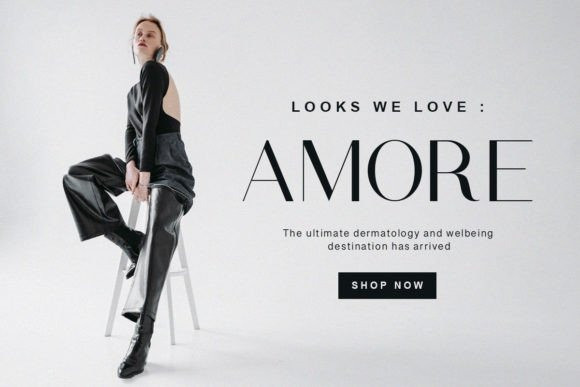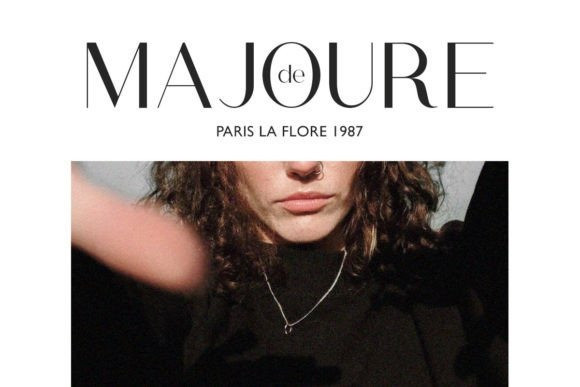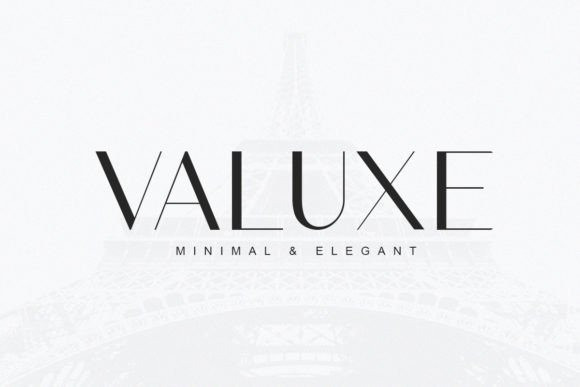
Valuxe Font
Valuxe Font — modern and minimalist sans serif. This font pairs well with a basic font like Arial and any script with an elegant style. It would be a perfect choice to design posters, affiches, logos, t-shirt and magazine prints, eye-pleasing typographic designs and more.